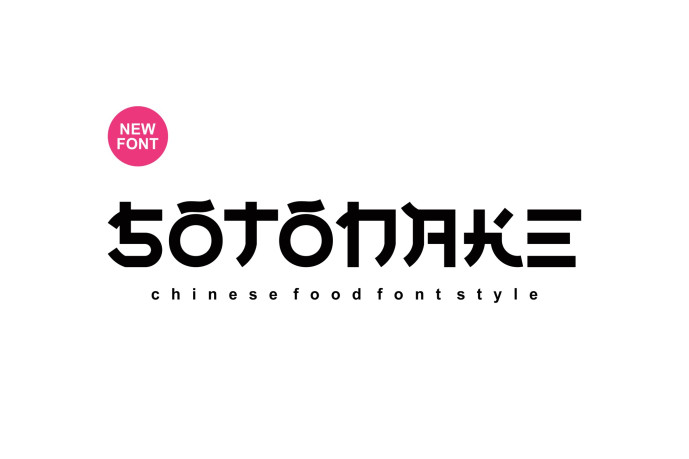
Sotonake – Chinese Food Font
Sotonake – Chinese Food Font is a bold and authentic display font. The font is suitable for any branding project like logo, esport, and many more. outstanding in a wide range of contexts.